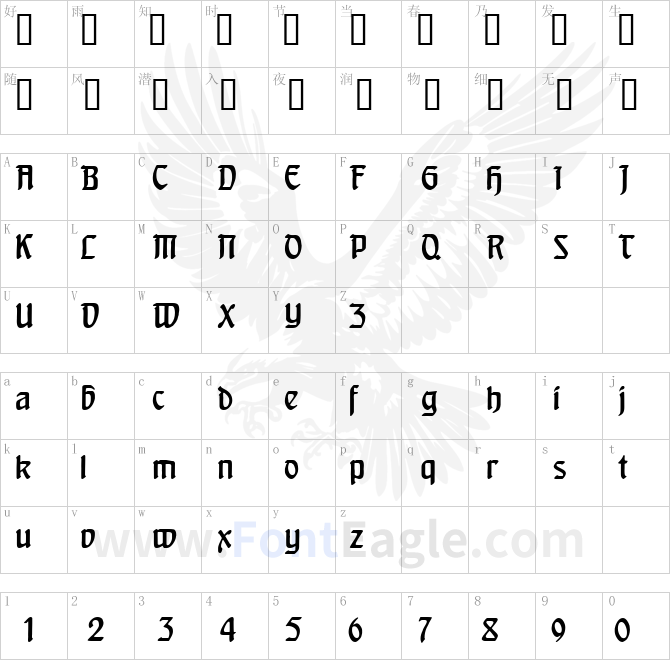
- Font name:Heinrich Text
- Font Subfamily ID:AlexandraGophmann: Heinrich text: 2006
- Font Full Name:Heinrich Text
- Postscript:HeinrichText
- Font Copyright:Copyright (c) Alexandra Gophmann, 2006. All rights reserved.